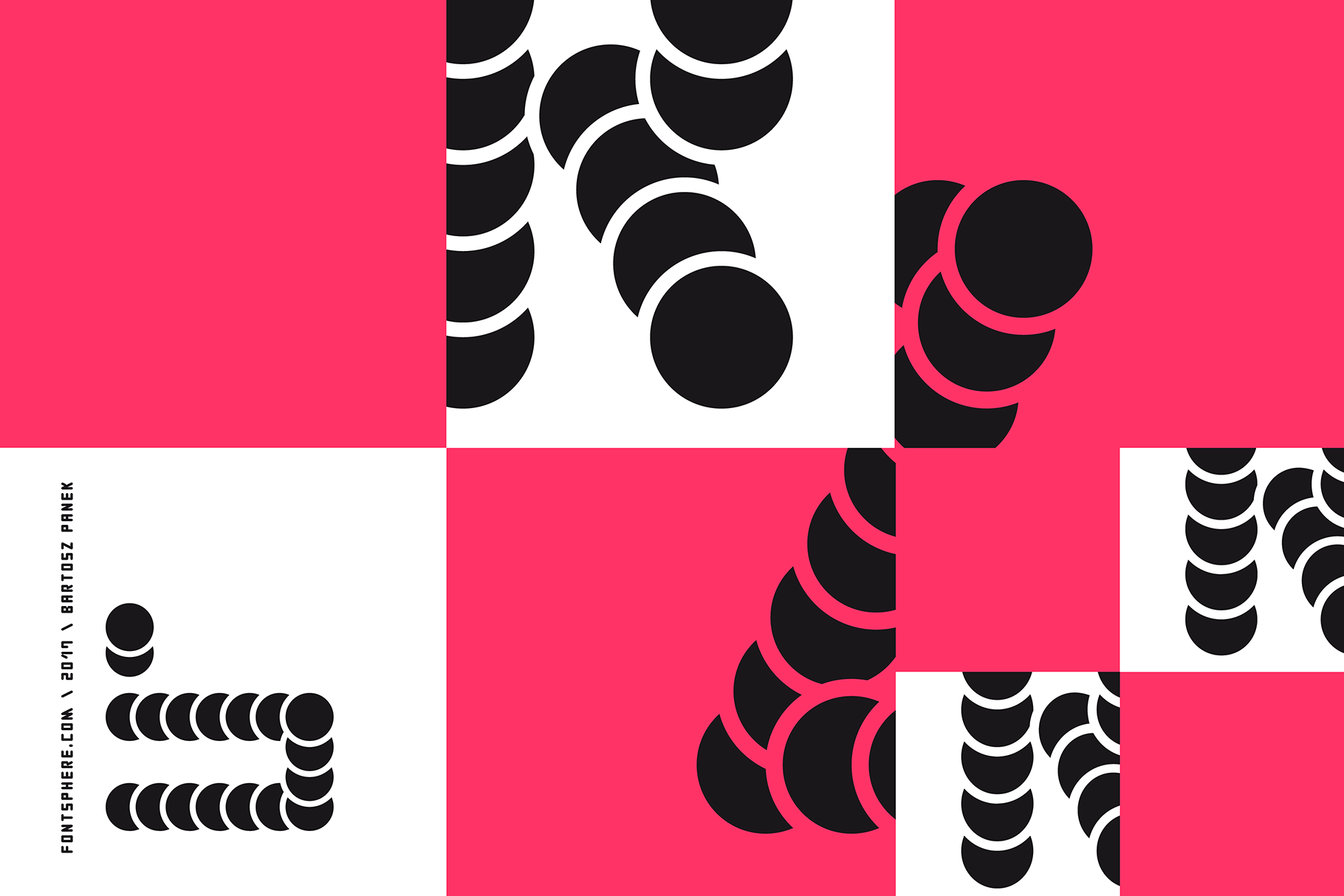
SUSHI Font
Use for awesome display, illustrations, posters, logos, t-shirts, titles, and much more..
- A unique font containing uppercase characters, numerals and a large range of punctuation (224 glyphs).